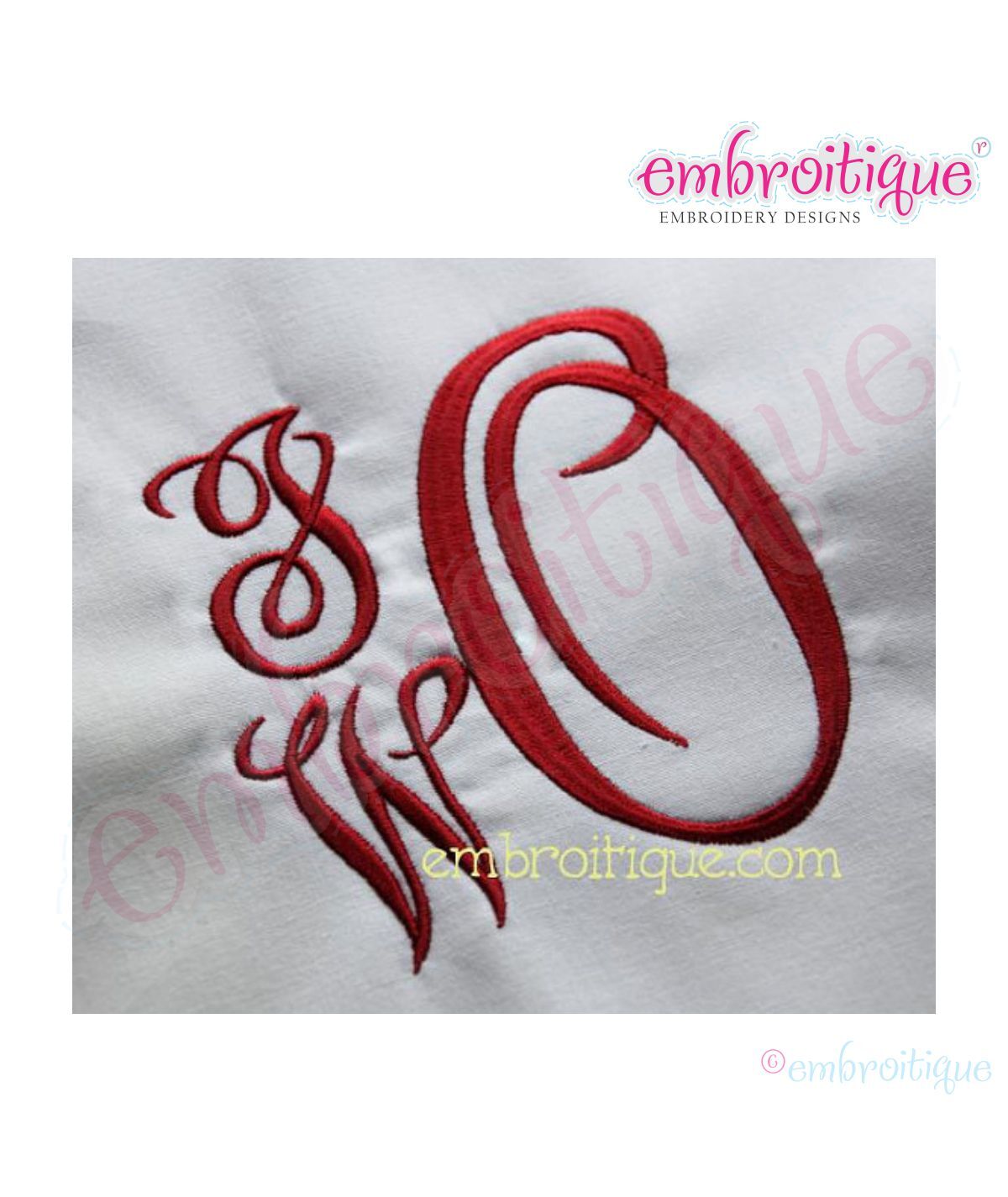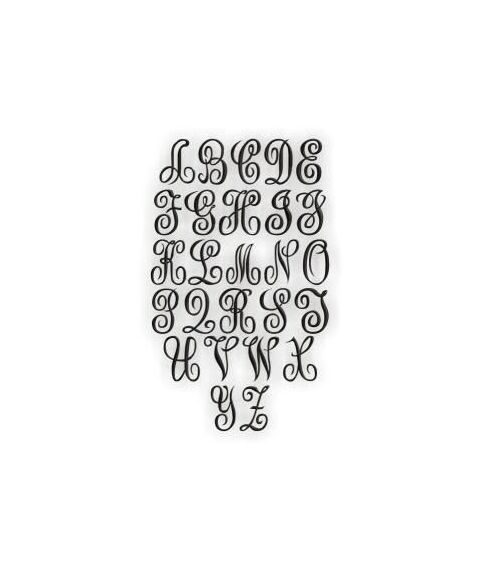
Oakley Fancy Scroll Vine Script Monogram Set - 4", 5", 6"
The thickness of this set would look beautiful on towels...or anything at all!
This set includes capital letters A-Z (4", 5", & 6") in a wide satin stitch.